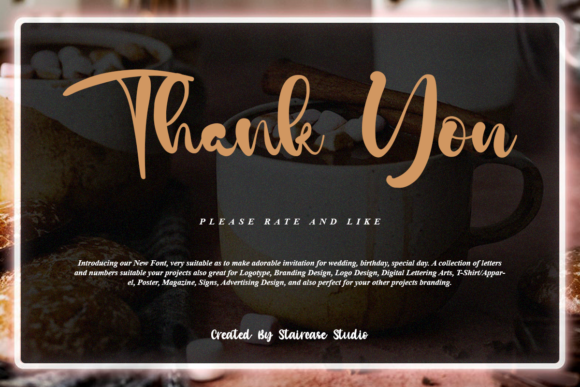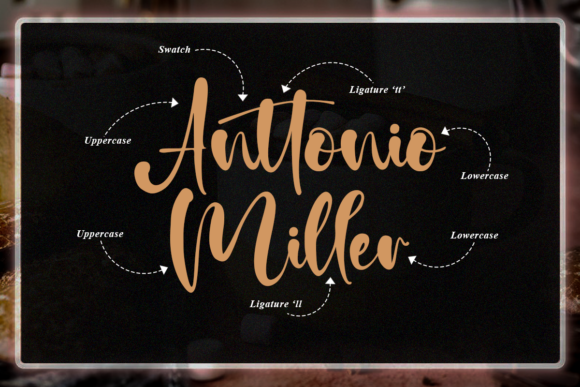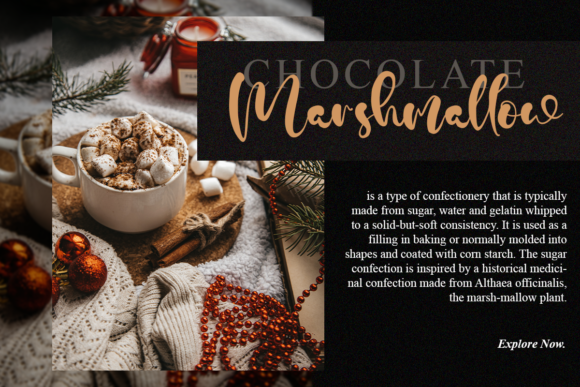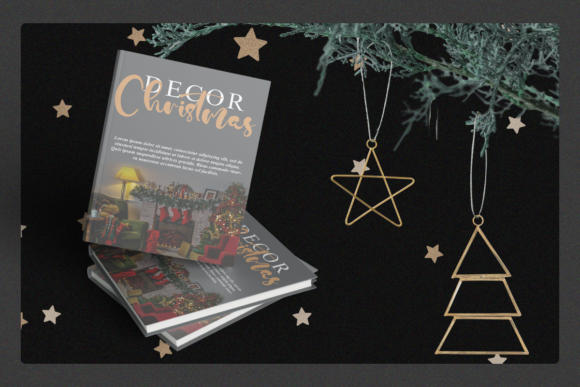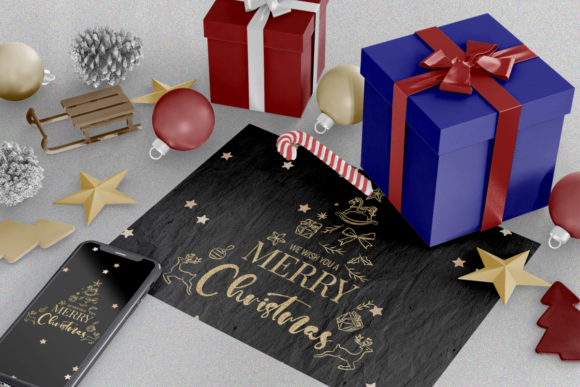
About Hot Cocoa Font
Hot Cocoa is a stylish and beautifully flowing handwritten font. It has a cozy feel and an authentic vibe that can elevate the look of any crafty idea. Fall in love with its lovely characters, and use them for your next creative project!